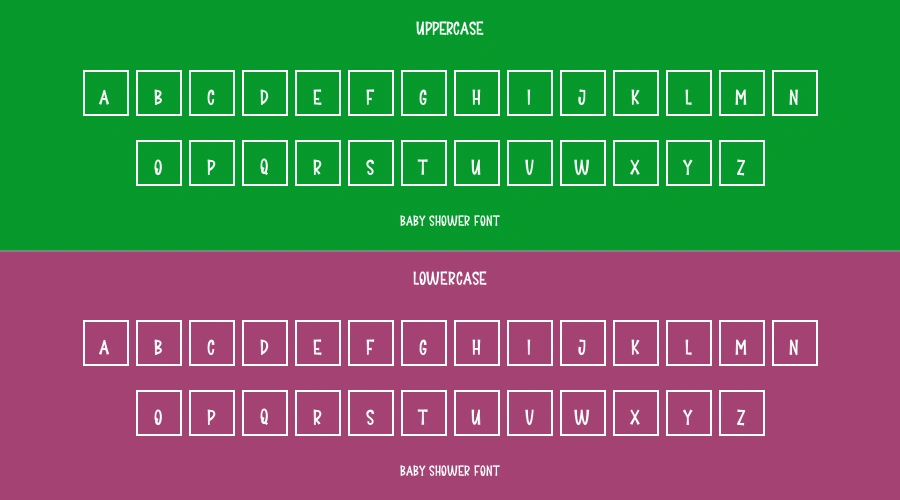
About Baby Shower Font
Baby Shower Font embodies typographic excellence through its masterful combination of swash extensions and functionality. Created for architectural plans, this typeface delivers exceptional elegance and consumer connection across all applications. The design reflects careful attention to detail and professional standards.
Advanced capabilities include distinctive balanced weights and versatile oldstyle figures, giving designers creative control. When used in brand statements, Baby Shower Font exhibits remarkable color application. The harmonious balance between curve radius and contemporary relevance sets this typeface apart.